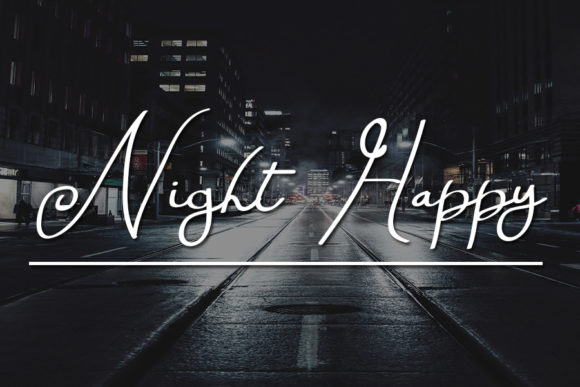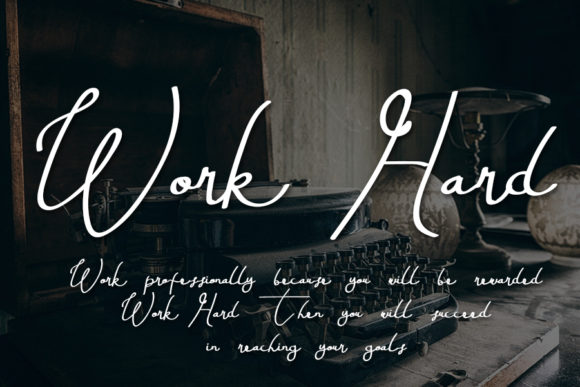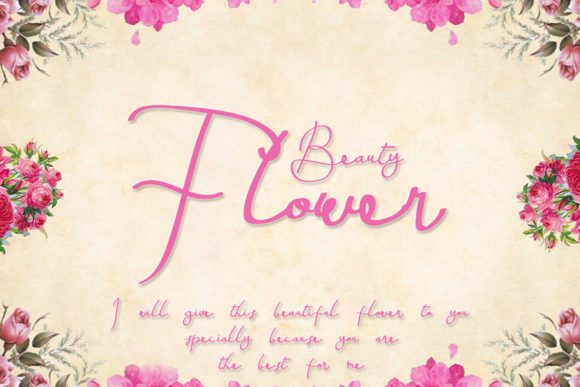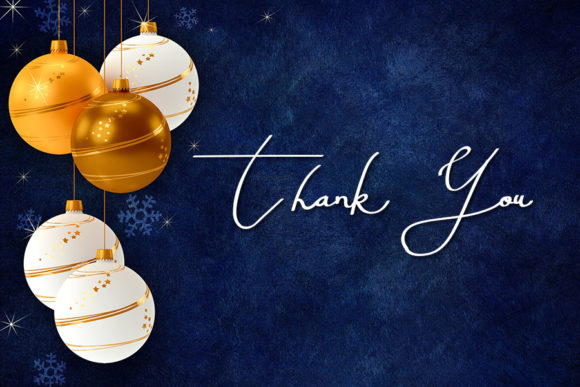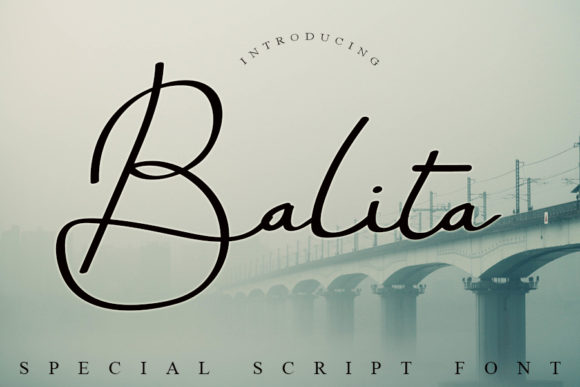
Discover the Elegance of Balita Font: A Perfect Choice for Personalized Designs
In the world of typography, fonts play a crucial role in conveying the tone and personality of a design. For those seeking a thin and elegant handwritten font, Balita is an excellent choice. This beautiful font is perfect for creating personalized designs that exude sophistication and charm. In this article, we’ll explore the features and uses of Balita font, and why it’s a favorite among designers and crafters.
What is Balita Font?
Balita is a thin and elegant handwritten font that is designed to add a touch of personalization to various designs. Its delicate strokes and refined appearance make it an ideal choice for projects that require a high level of sophistication. Whether you’re creating wedding invitations, thank you cards, or greeting cards, Balita font is sure to impress.
Key Features of Balita Font
- Thin and Elegant: Balita font features thin and delicate strokes that give it an elegant appearance.
- Handwritten Style: The font has a handwritten style that adds a personal touch to designs.
- Versatile: Balita font can be used on a variety of designs, including wedding invitations, thank you cards, weddings, greeting cards, logos, and more.
- Easy to Read: Despite its thin strokes, Balita font is easy to read, making it perfect for body text and headings.
Uses of Balita Font
Balita font is a versatile font that can be used on various designs, including:
- Wedding Invitations: Add a touch of elegance to your wedding invitations with Balita font.
- Thank You Cards: Express your gratitude with beautifully designed thank you cards featuring Balita font.
- Greeting Cards: Create stunning greeting cards for special occasions, such as birthdays, anniversaries, and holidays.
- Logos: Use Balita font to create elegant and sophisticated logos for your business or brand.
- Stationery: Add a personal touch to your stationery, including letterheads, envelopes, and notebooks.
Why Choose Balita Font?
There are several reasons why Balita font is a popular choice among designers and crafters:
- Unique and Elegant: Balita font offers a unique and elegant appearance that sets it apart from other fonts.
- High-Quality: Balita font is a high-quality font that is designed to produce crisp and clear results.
- Support for Multiple Languages: The font supports multiple languages, making it a great choice for international designs.
Tips for Using Balita Font
Here are some tips for using Balita font effectively:
- Use it Sparingly: Use Balita font sparingly to add emphasis to important text, such as headings or titles.
- Pair it with Other Fonts: Pair Balita font with other fonts to create a unique and visually appealing combination.
- Adjust the Size: Adjust the size of Balita font to create visual hierarchy and add emphasis to important text.
Balita font is a beautiful and elegant handwritten font that is perfect for creating personalized designs. Its thin and refined appearance makes it an ideal choice for wedding invitations, thank you cards, greeting cards, logos, and more. With its ease of use, high-quality design, and support for multiple languages, Balita font is a great addition to any designer’s toolkit. Whether you’re a professional designer or a crafter, Balita font is sure to inspire your creativity and help you produce stunning designs.